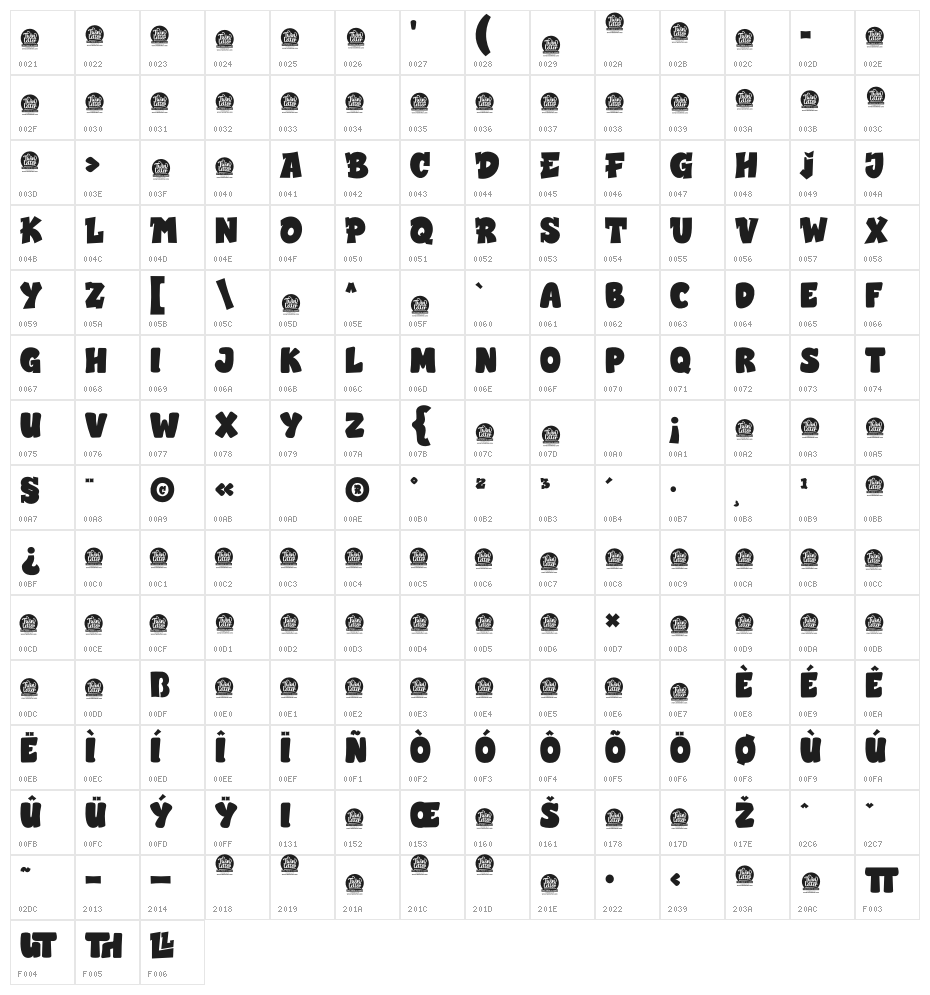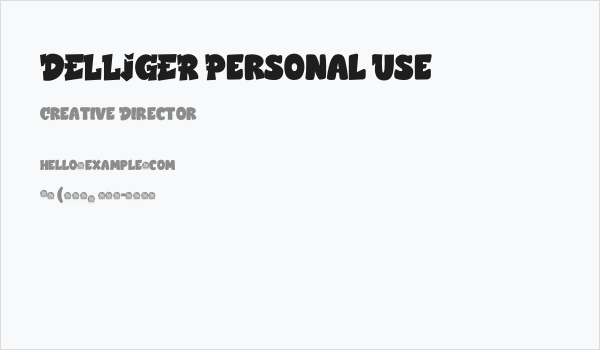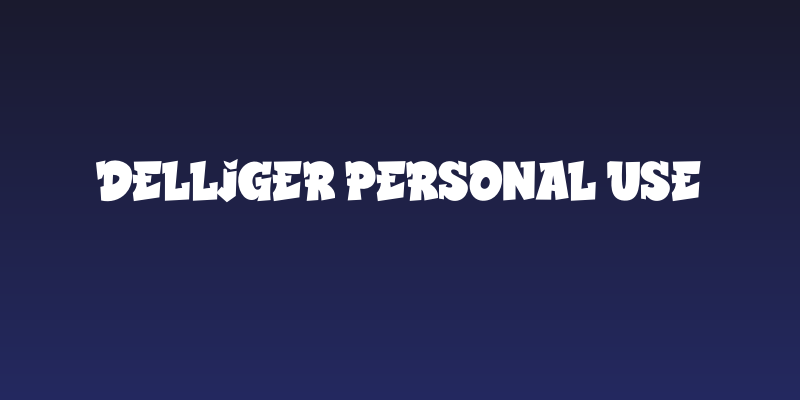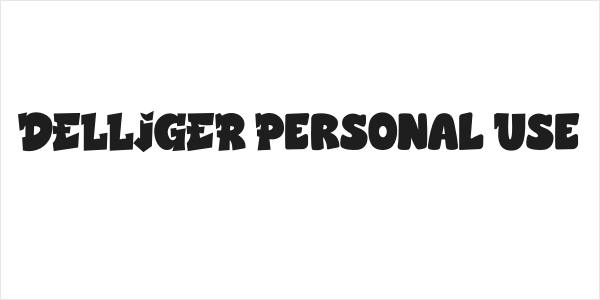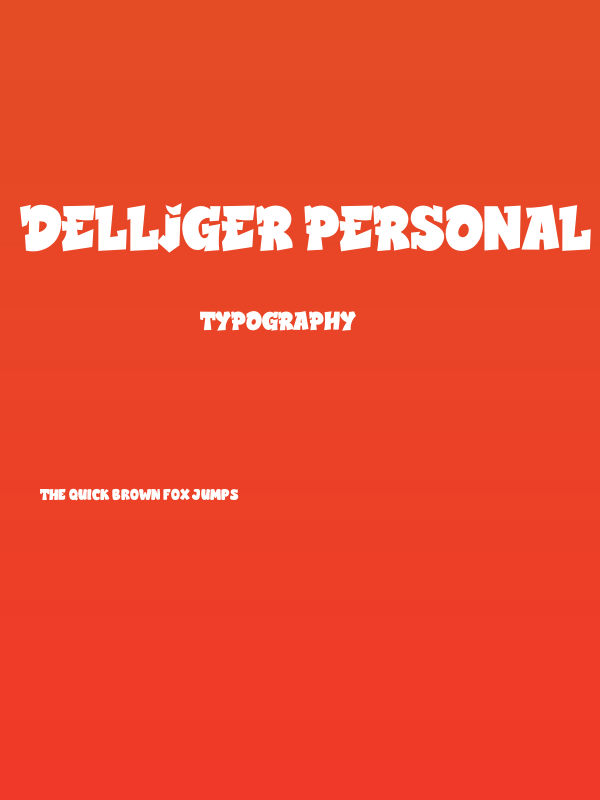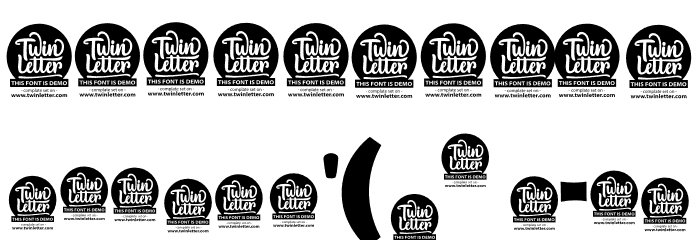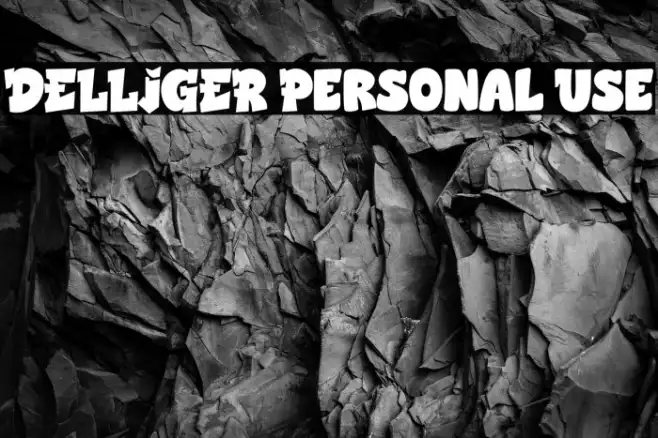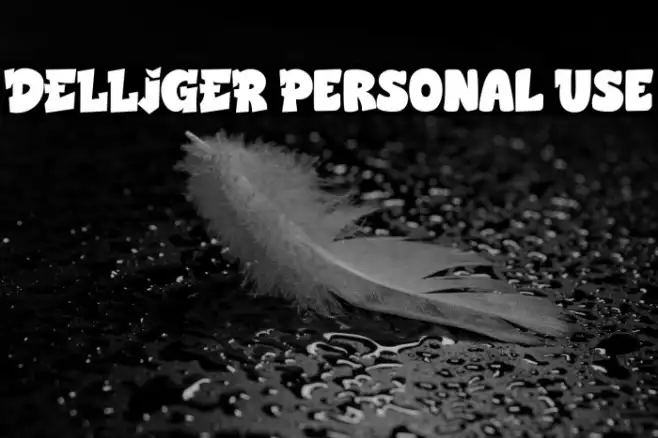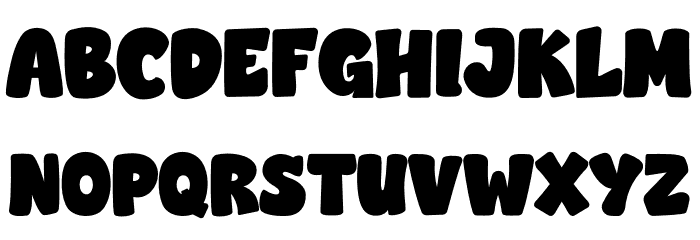
DELLIGER Personal Use Font
DELLIGER Personal Use Description
This font features bold, playful characters with a distinctively chunky and dynamic style. The letters are heavily weighted, giving them a strong presence, while the exaggerated curves and angles add a whimsical touch. The uppercase and lowercase letters maintain a consistent boldness, making them suitable for eye-catching designs. The font's unique style is characterized by its thick strokes and slightly irregular shapes, which contribute to its lively and energetic appearance. The spacing between characters is tight, enhancing the compact and robust look of the text. This font is ideal for projects that require a fun and bold statement.
| Overall Style | Playful, Energetic |
| Proposed Projects | Ideal for children's books, playful branding, posters, and event invitations. |